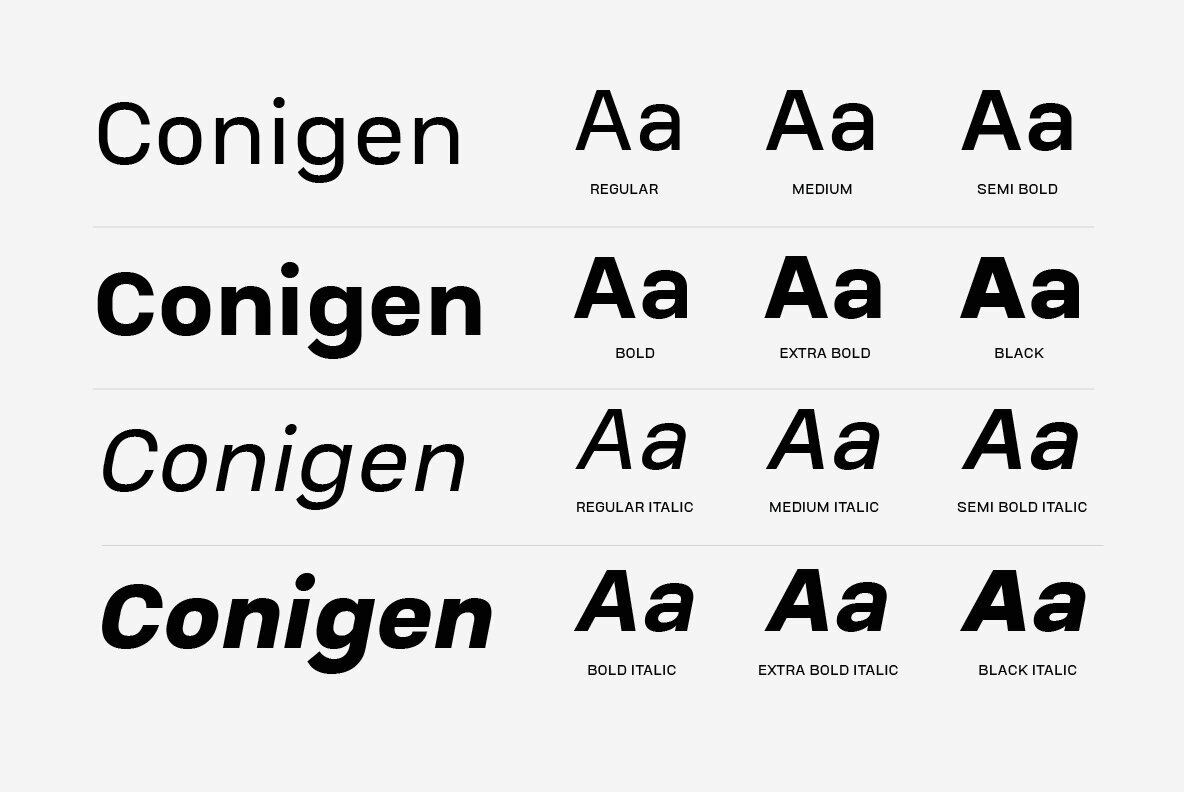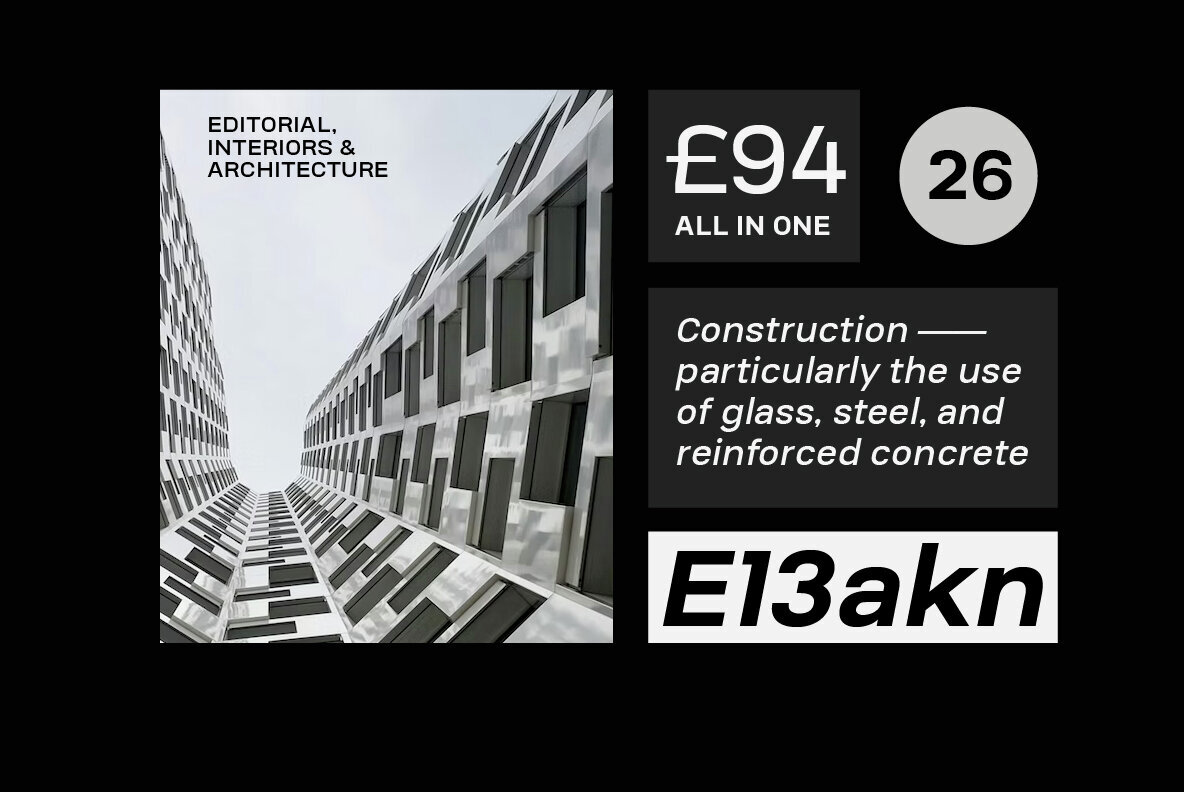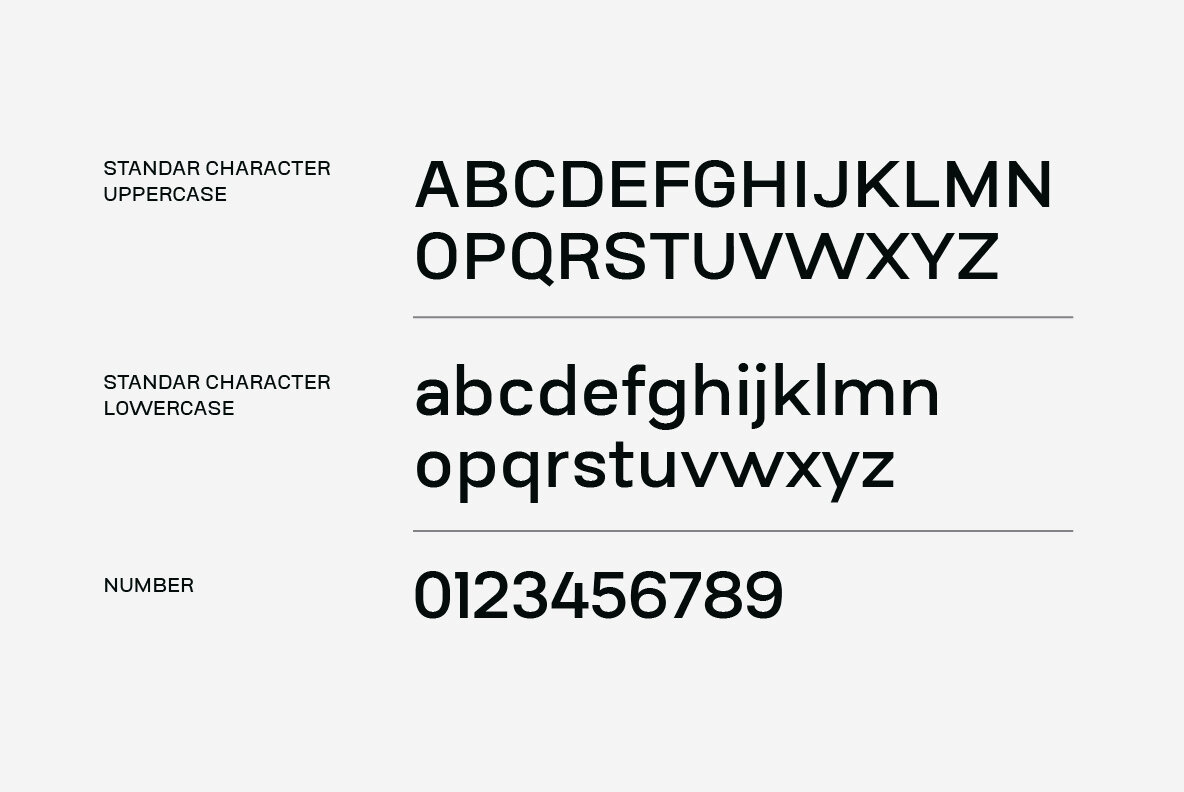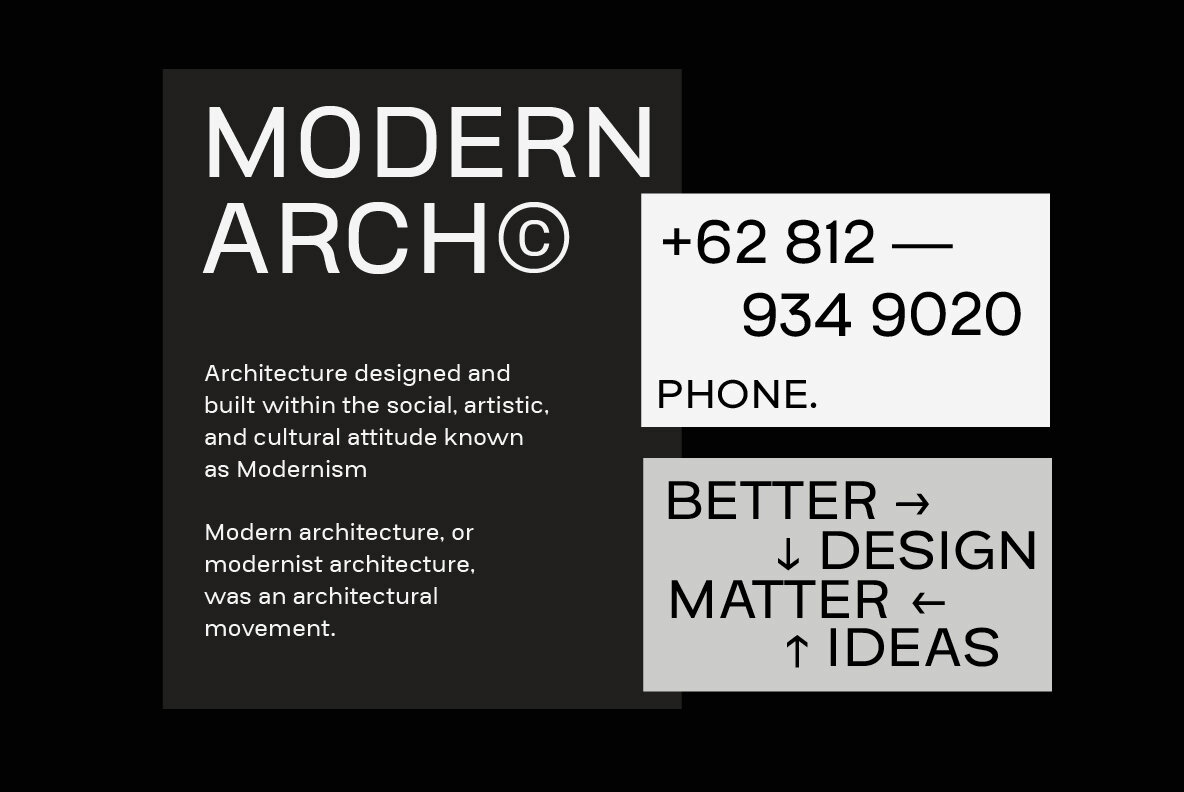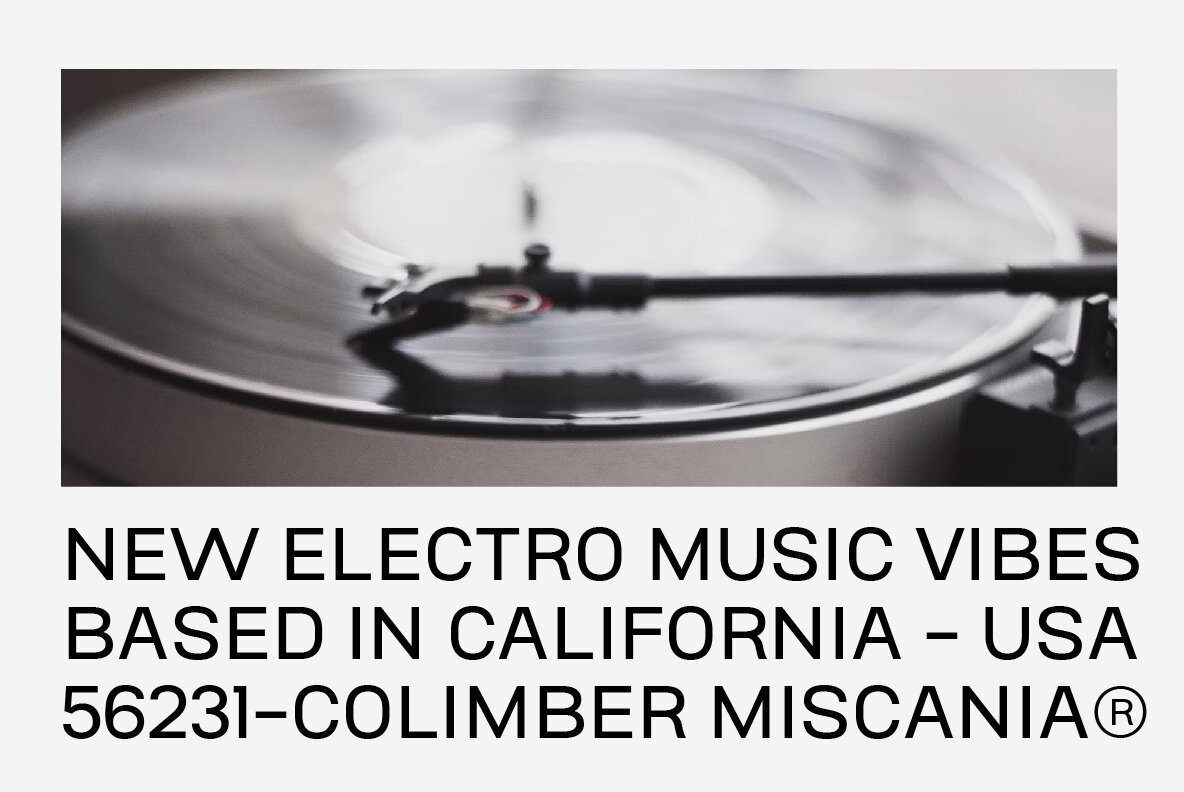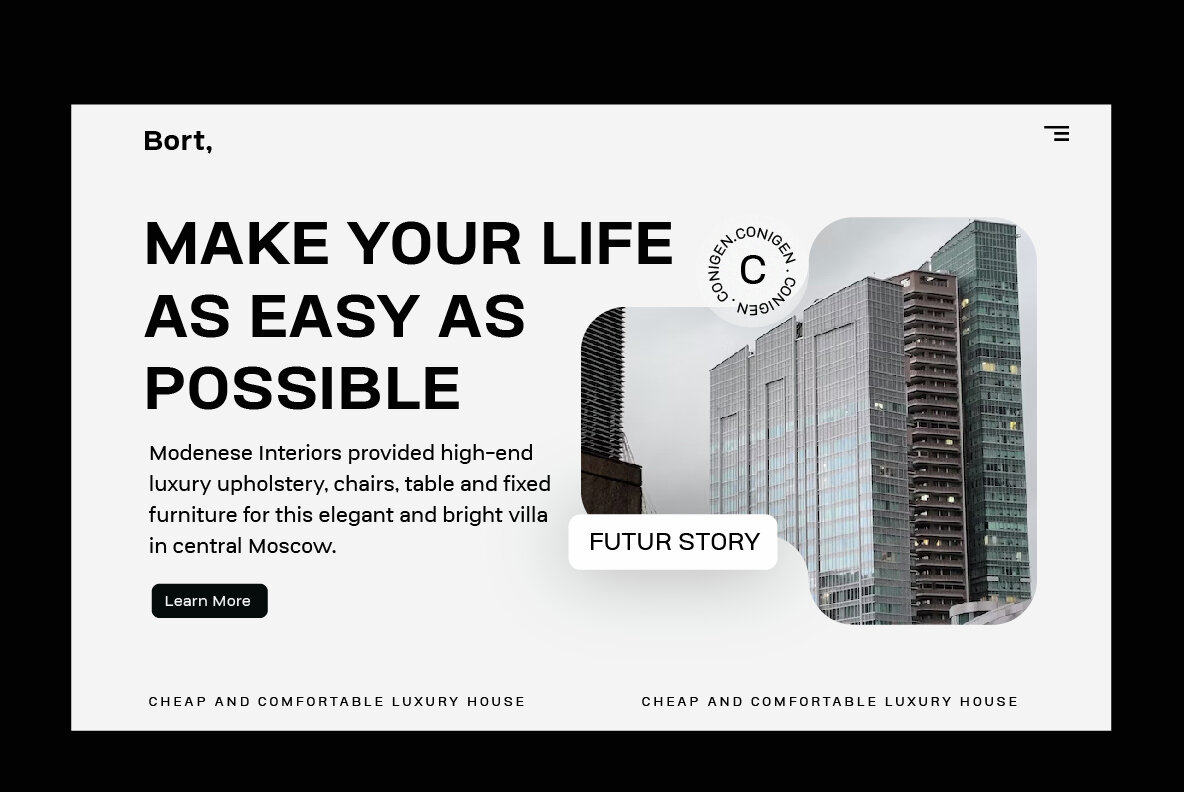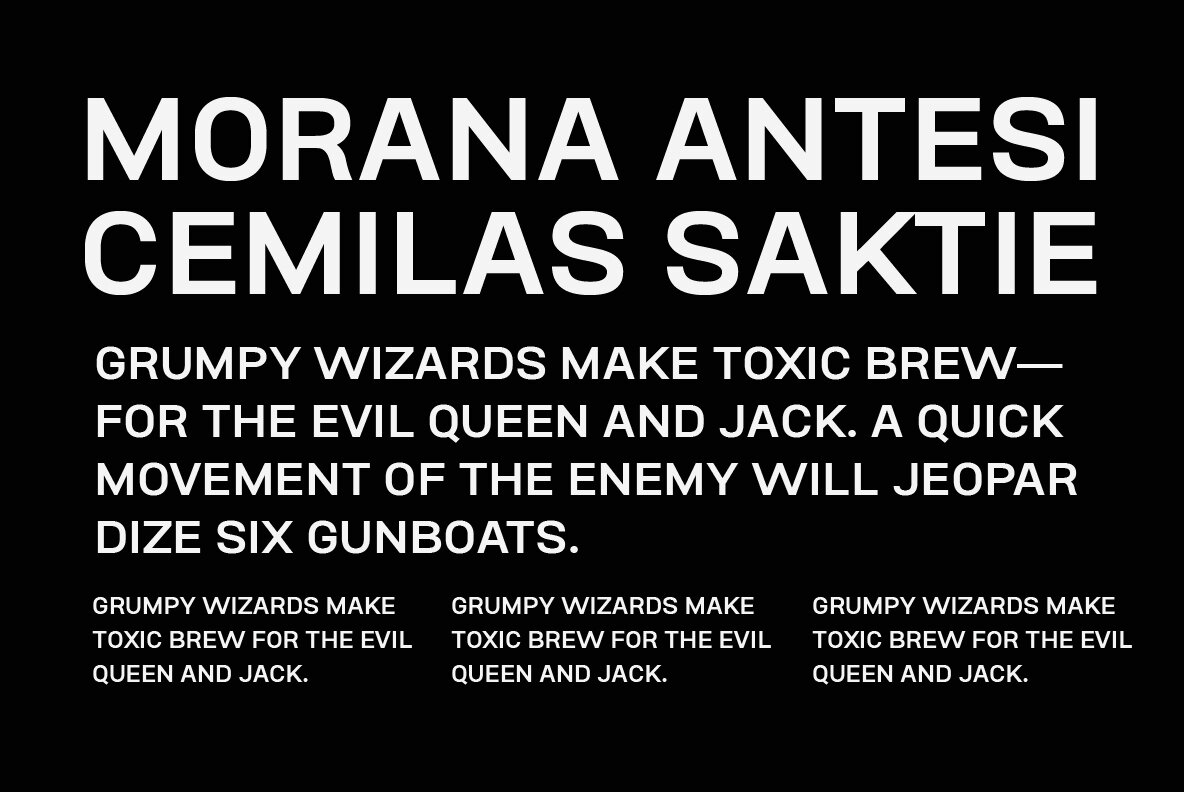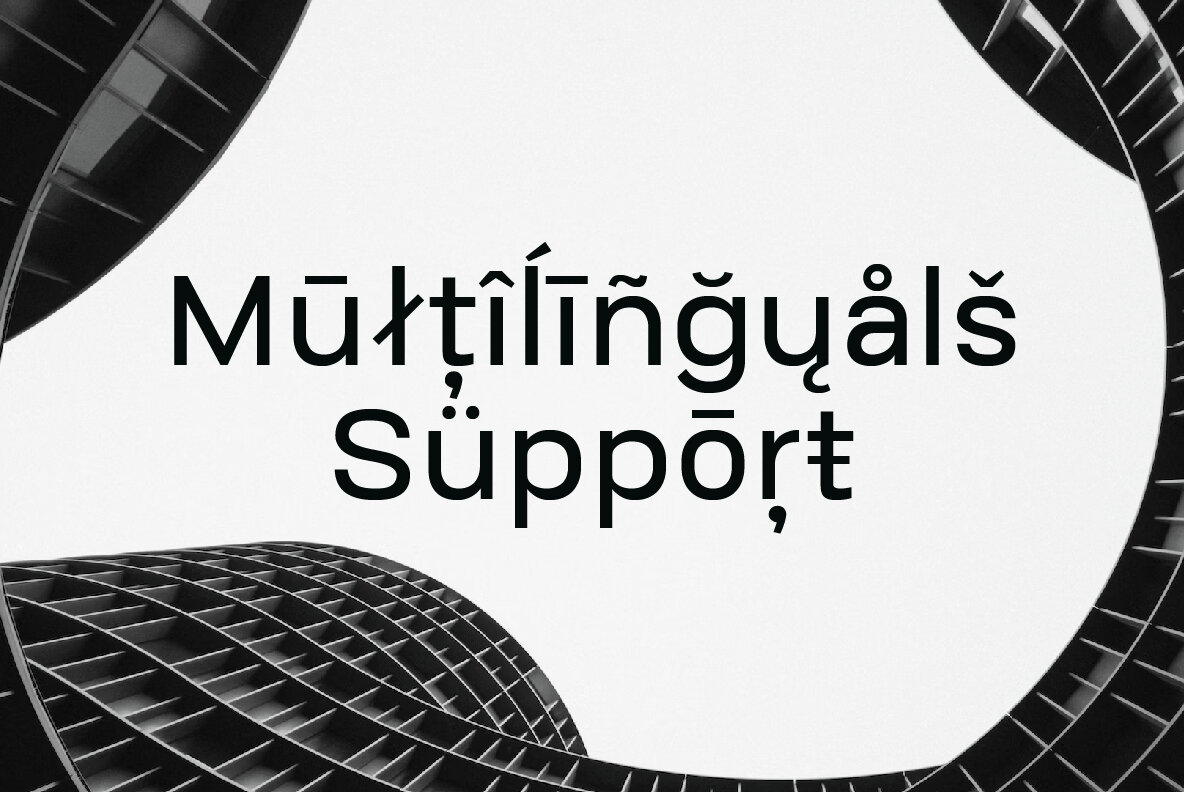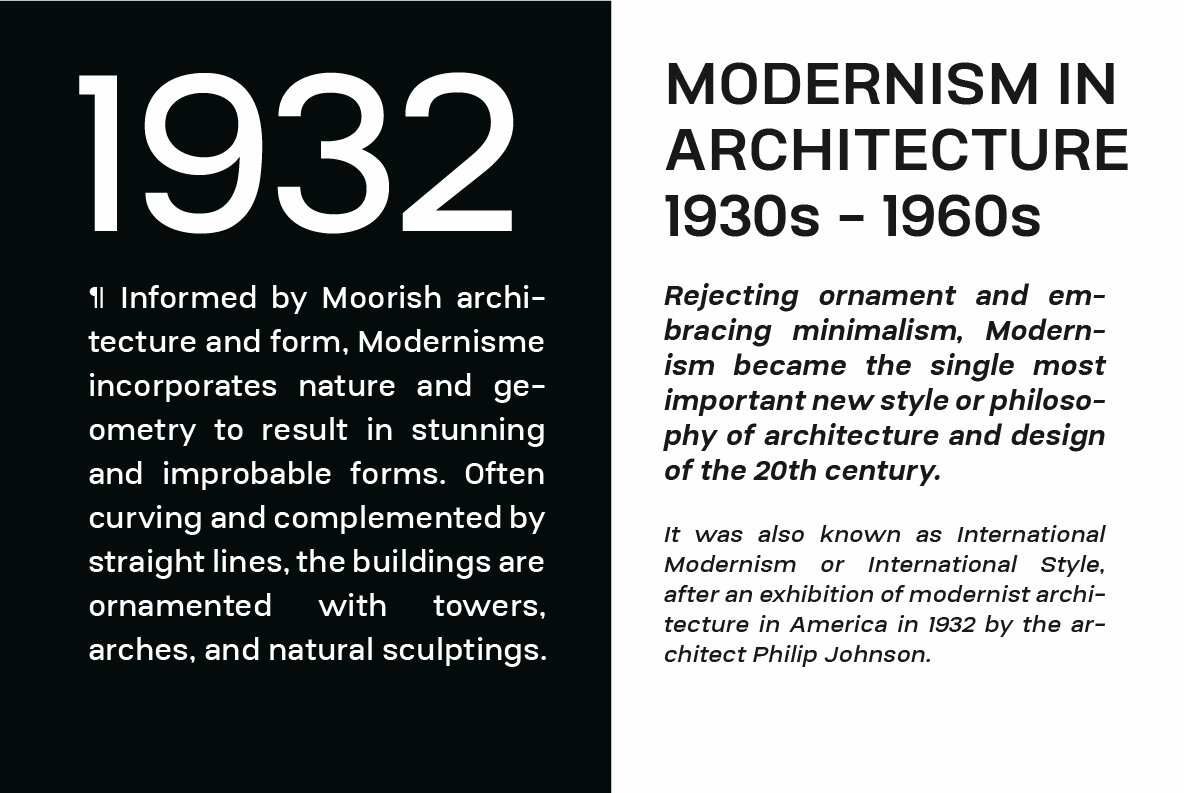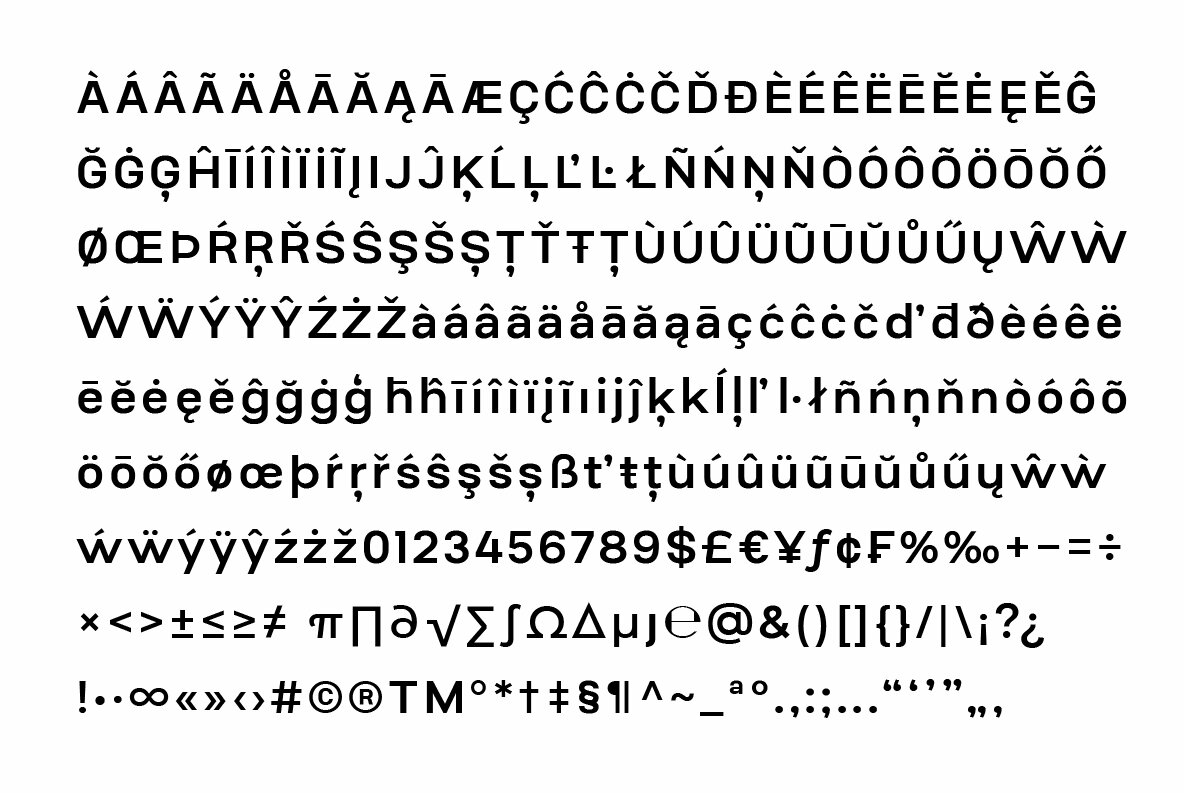
Conigen Font
Conigen Modern is a modern typeface that looks both futuristic and contemporary. The lines are sharp and clean with an aerodynamic shape that exudes a modern and technologically advanced feel. Perfect for technology design and branding. This font is simple and clean, making it easy for the designer to convey a message to the design without confusing the viewer too much.